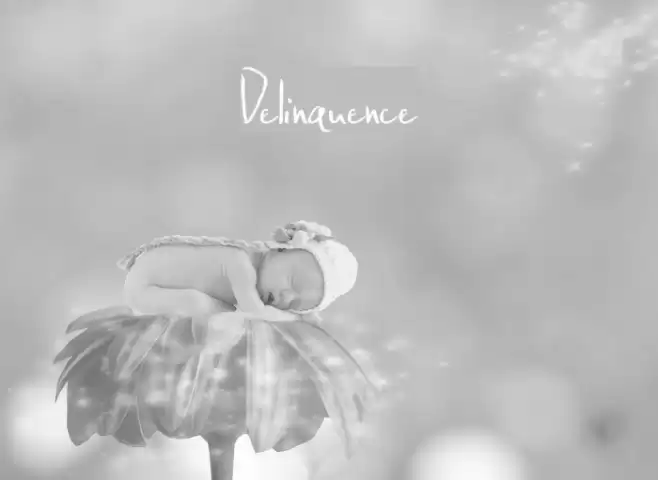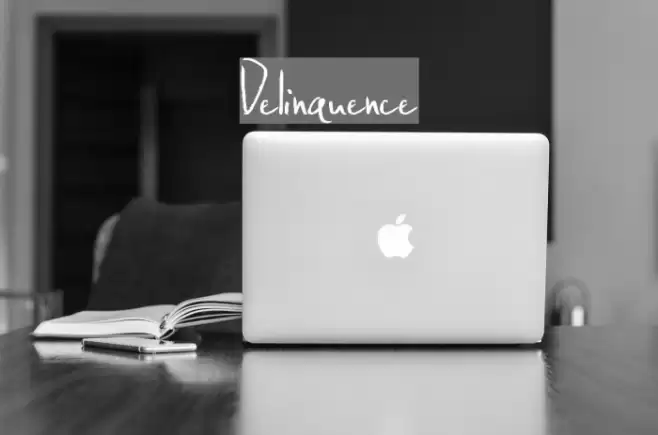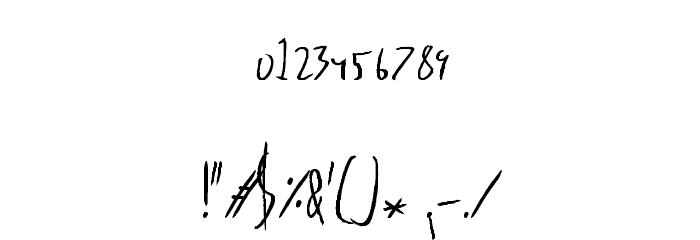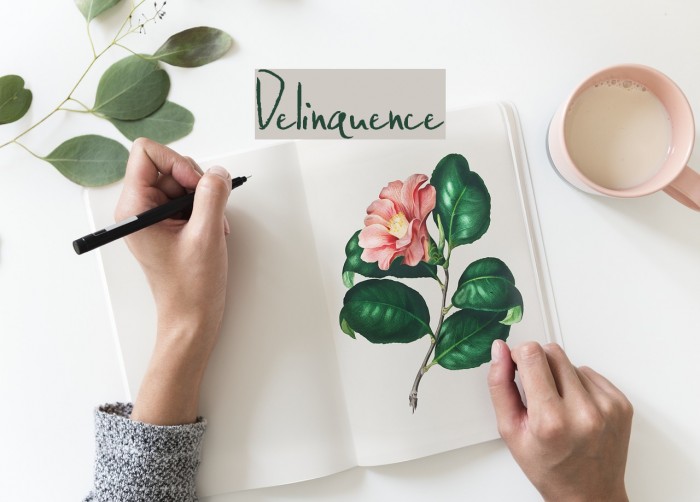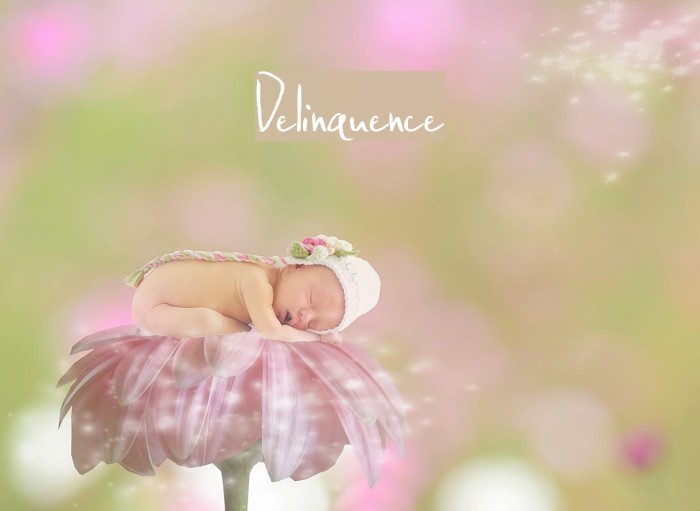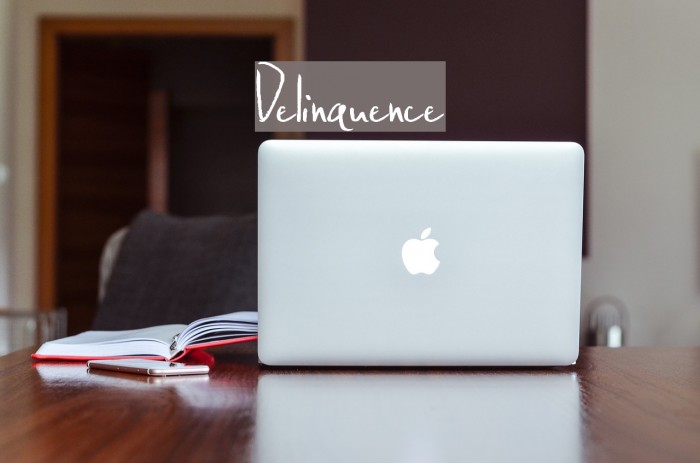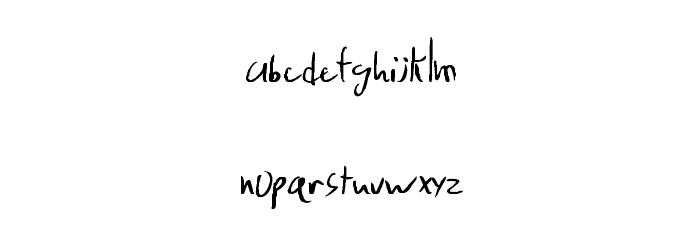
Delinquence Font
Delinquence Description
This font exudes a casual, handwritten style with a playful and slightly chaotic appearance. The letters are unevenly sized and spaced, giving it a dynamic and energetic feel. The strokes are thin and irregular, adding to its informal and spontaneous character. It captures the essence of a quick, expressive handwriting, making it ideal for projects that require a personal touch. The font includes both uppercase and lowercase letters, numbers, and a variety of special characters, all maintaining the same whimsical style.
A playful, handwritten font with thin, irregular strokes from Handwritten fonts.
- Proposed Projects: Ideal for greeting cards, personal notes, creative projects, and informal branding.
- Character Spacing: Wide
- Overall Style: Casual, Playful
- Use Case: Headlines, Informal text, Creative projects